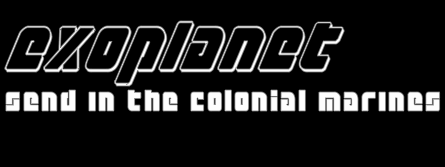
A sci-fi font with a retro look and feel out of the 70's or 80's. Exoplanet is bold typeface with a touch of stencil effect and comes with a complete Latin character set (including the Euro) and there are several alternate letter forms between the upper and lower cases, For information on commercial usage, please visit www.iconian.com/commercial.html |